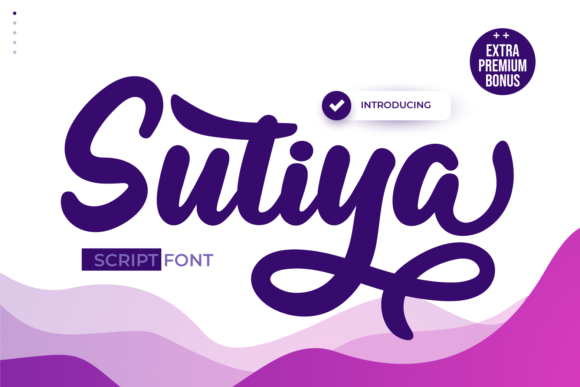
Journey into the realm of Sutiya Font, a captivating script font brimming with charm and creativity. Let your designs bloom with elegance as you embrace this beautiful calligraphy script, crafted with the utmost care by twinletter. Its delicate strokes and flowing curves exude a sense of playfulness and sophistication, making it the perfect choice for adding a touch of whimsy to your projects.
With Sutiya Font, your words will dance upon the page, captivating your audience with its enchanting allure. Whether you're seeking to create eye-catching advertisements, distinctive trademarks, or mouthwatering food menus, Sutiya Font is your ultimate design companion. Its versatility knows no bounds, extending to banners, text, posters, and myriad other creative endeavors.
Envision your designs adorned with Sutiya Font's intricate details, as it weaves a tapestry of visual delight. Let your imagination soar as you craft stunning logos that exude professionalism, or create invitations that radiate warmth and elegance. The possibilities are endless, and Sutiya Font is your gateway to design brilliance.
Unleash your creativity and let Sutiya Font transform your designs into works of art. Its graceful curves and enchanting aura will cast a spell on your audience, leaving them captivated by the visual symphony you've created. Embrace the magic of Sutiya Font and embark on a journey of design enchantment.